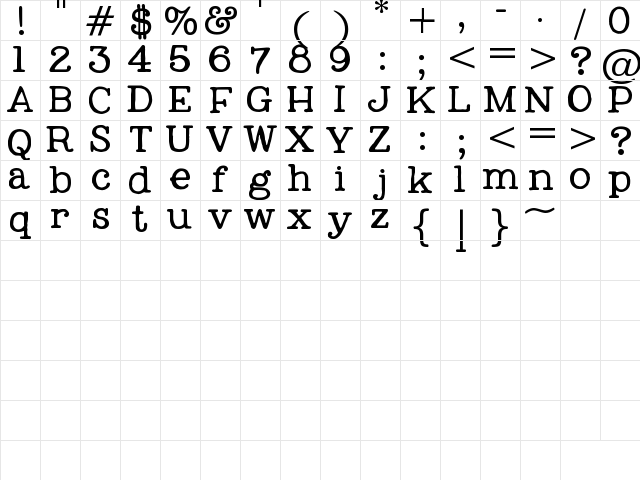
My Own Topher Regular
Design Context for My Own Topher Typeface
My Own Topher offers clean, dependable letterforms without strong stylistic allegiance, making it a practical choice for designers who need flexibility.